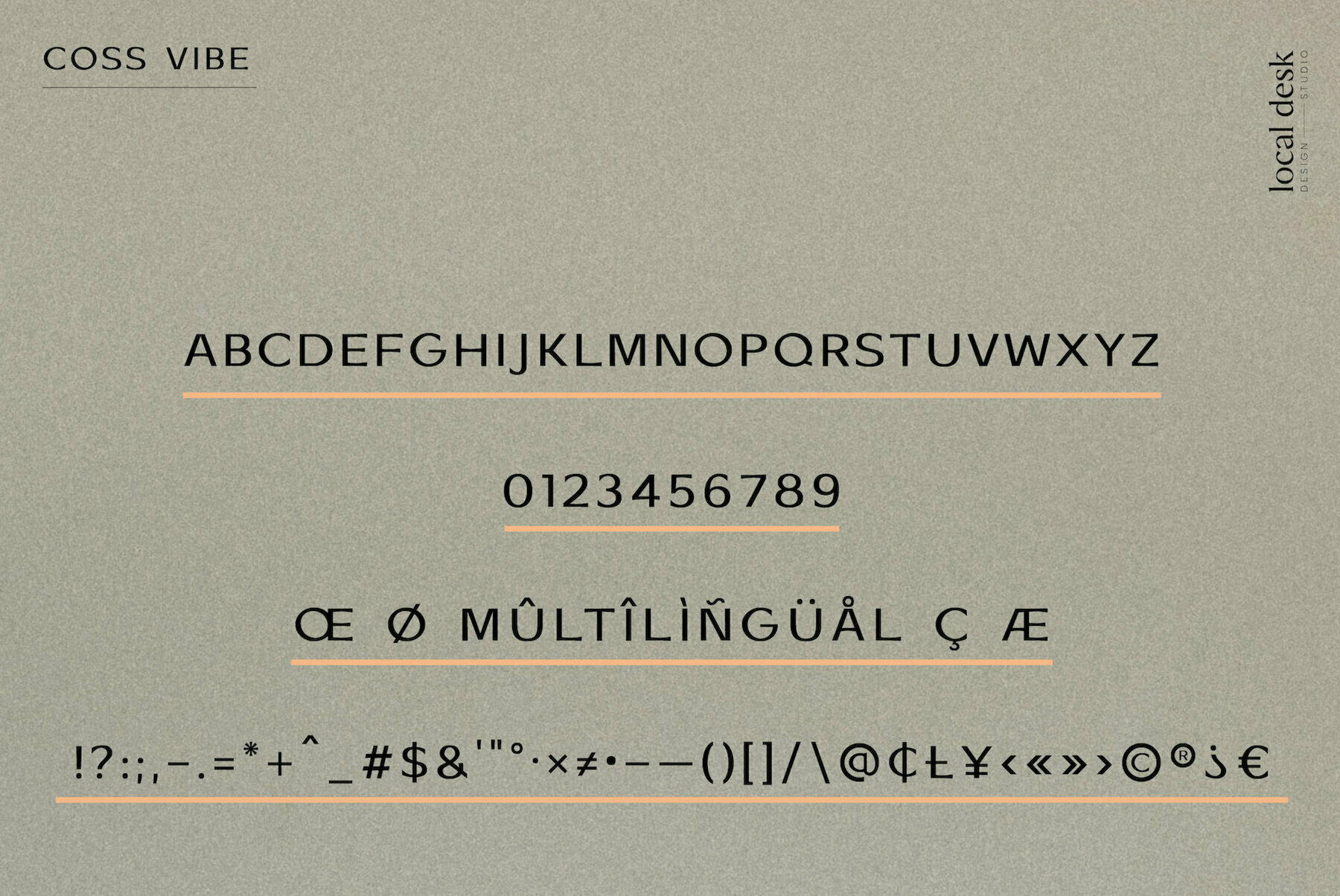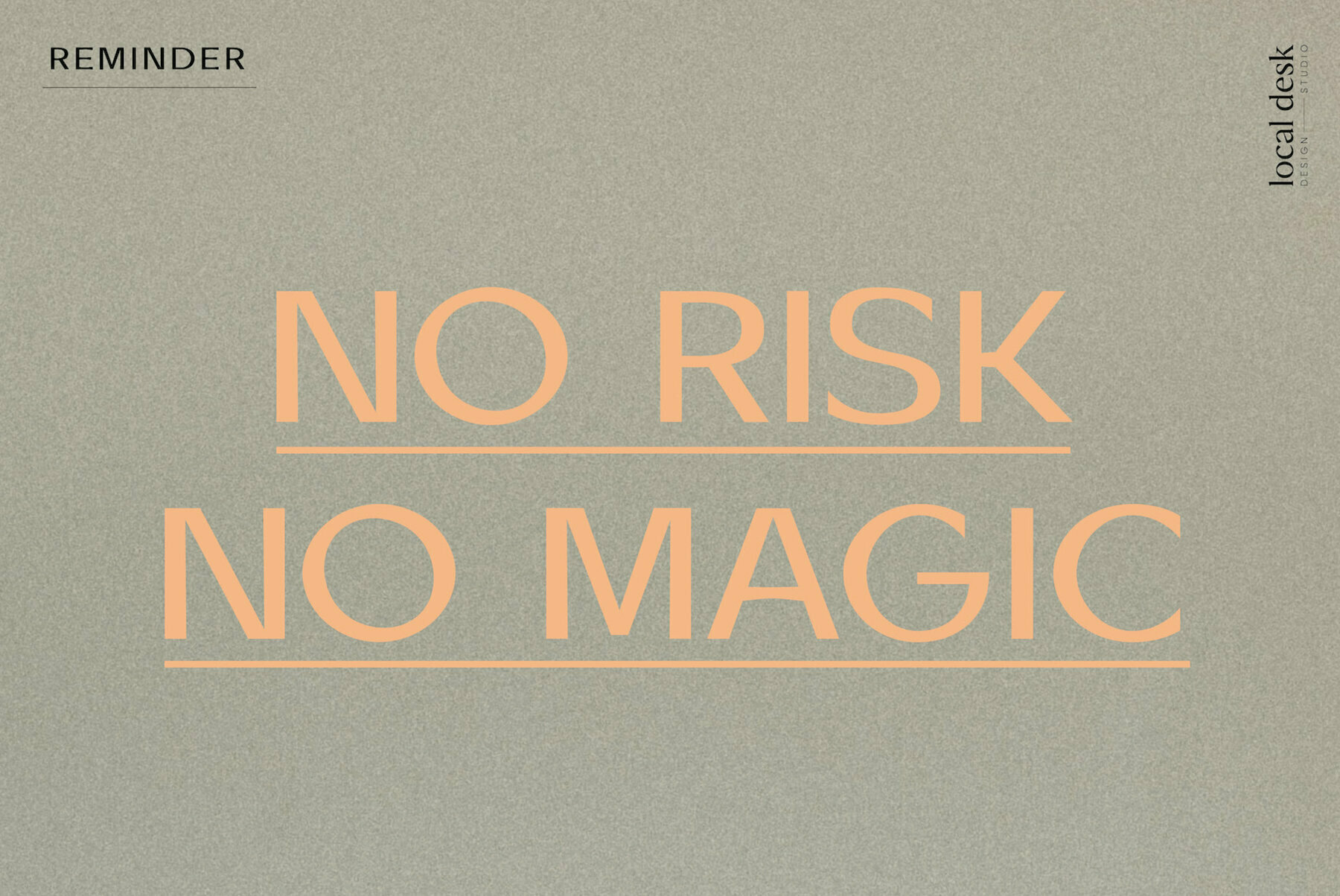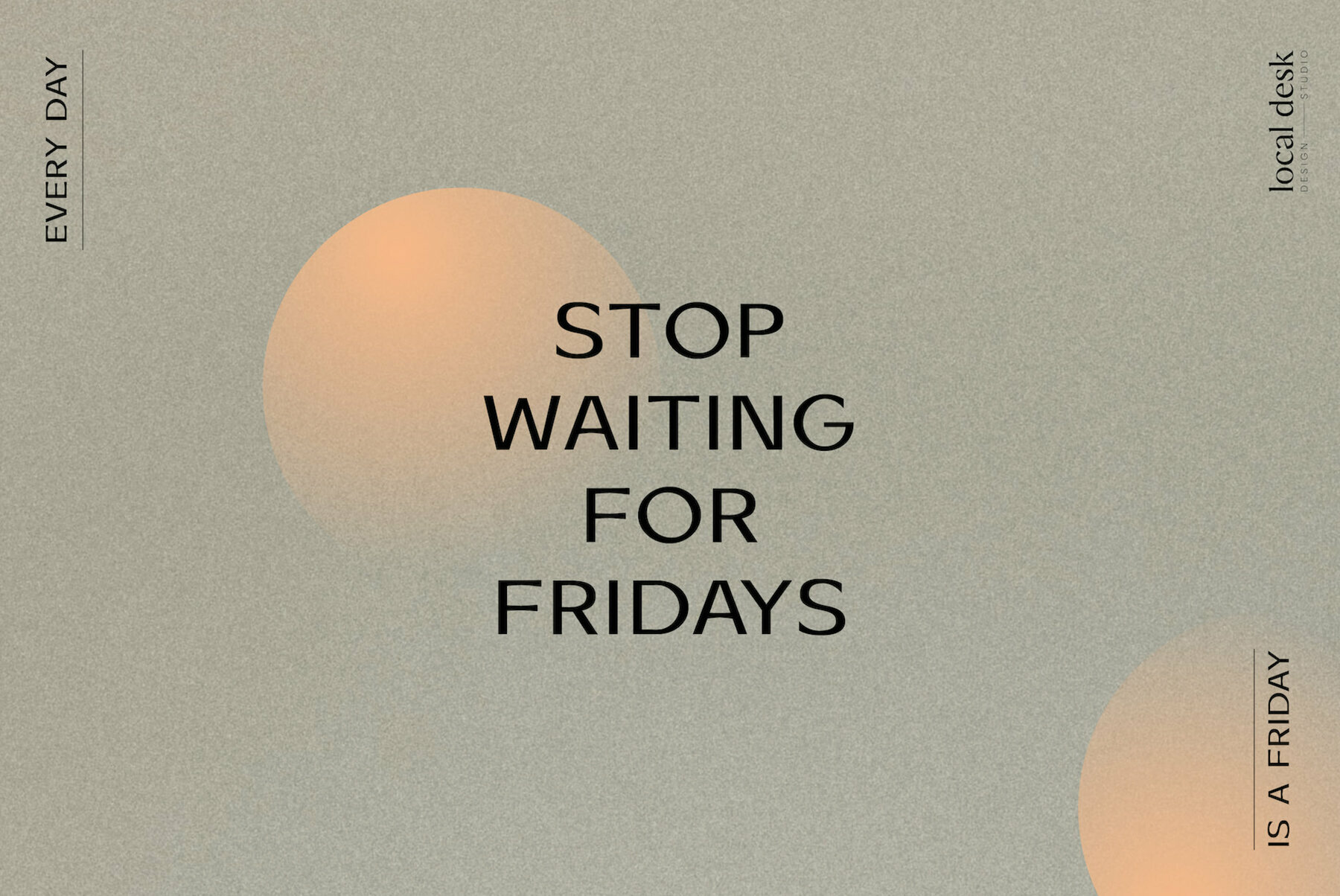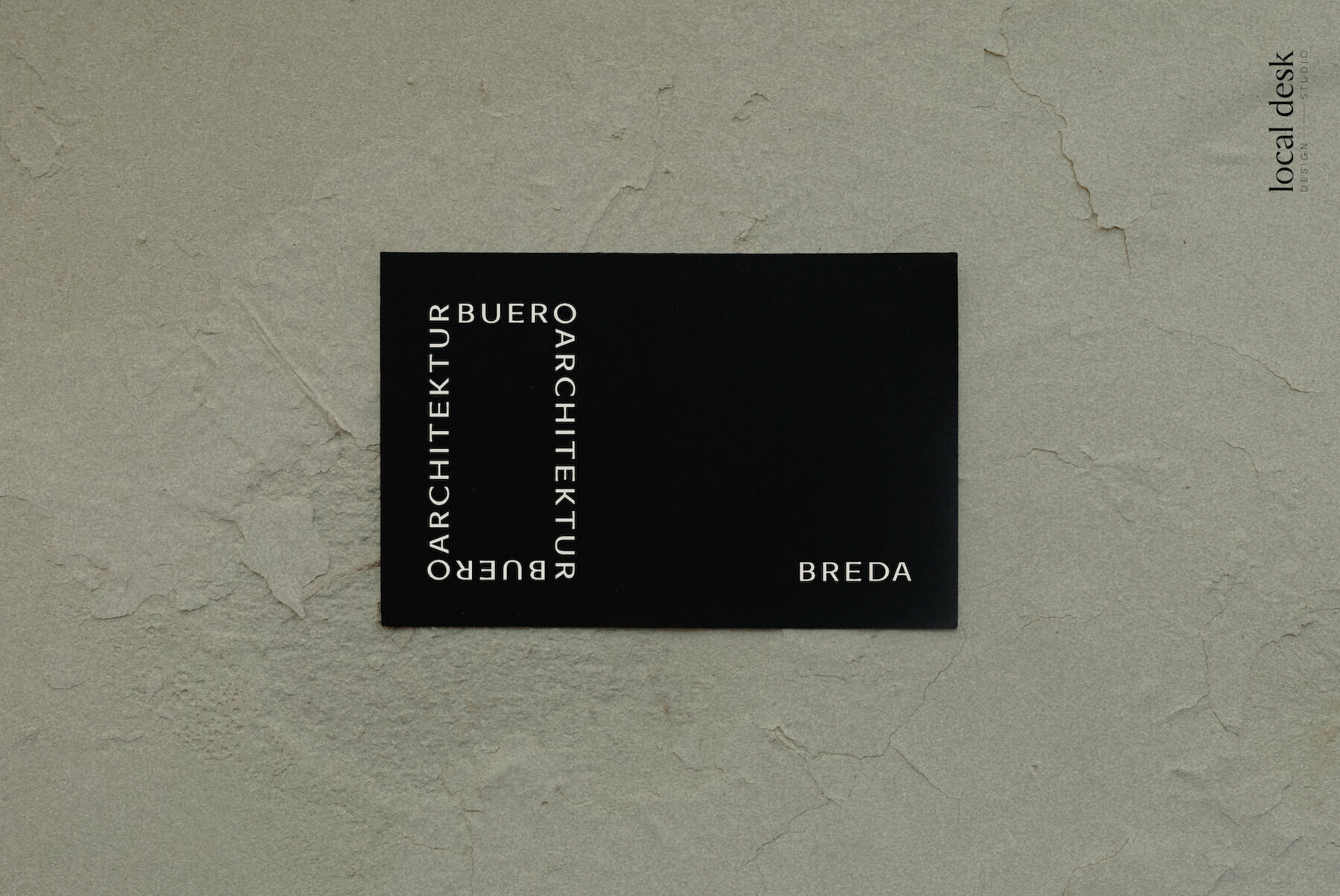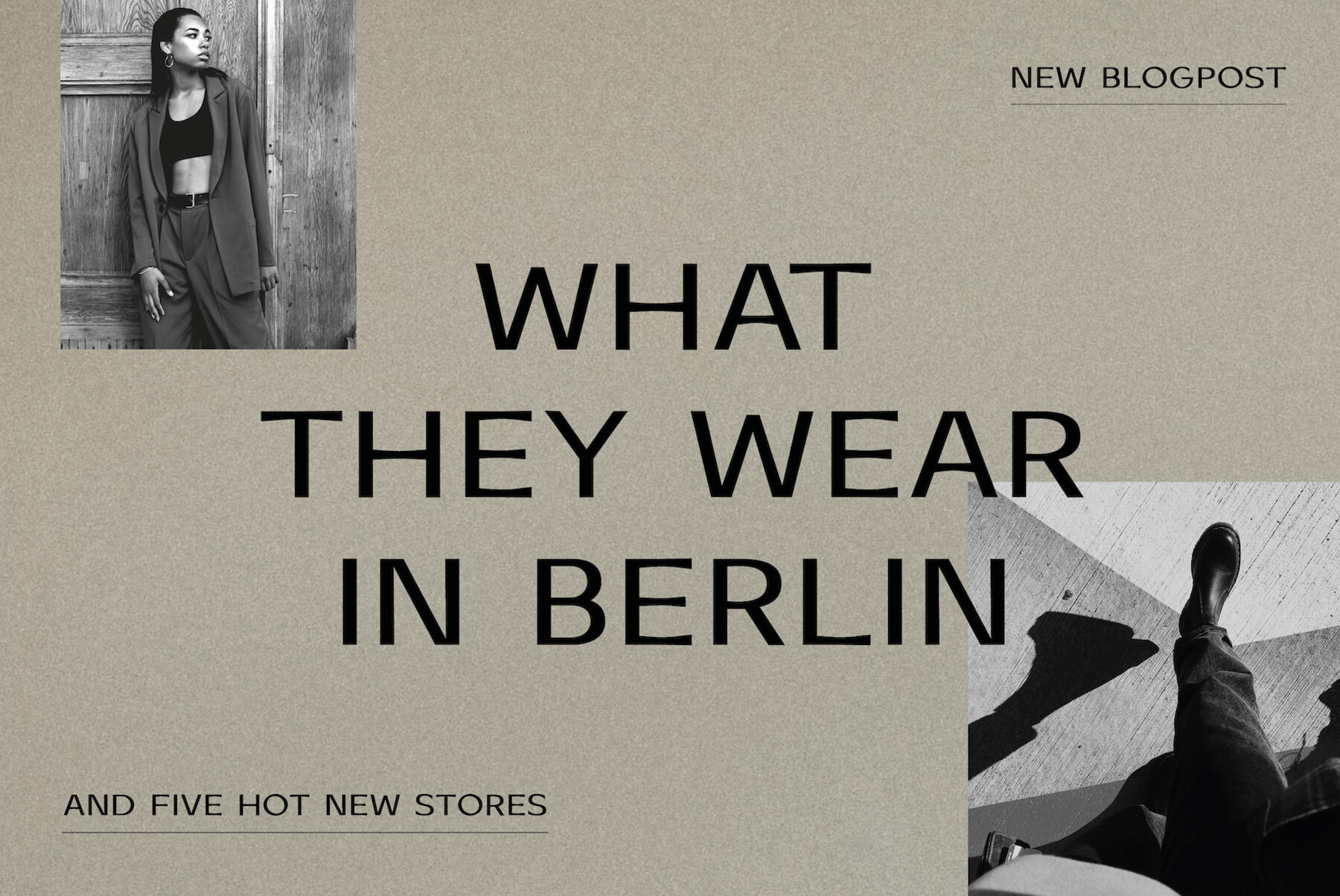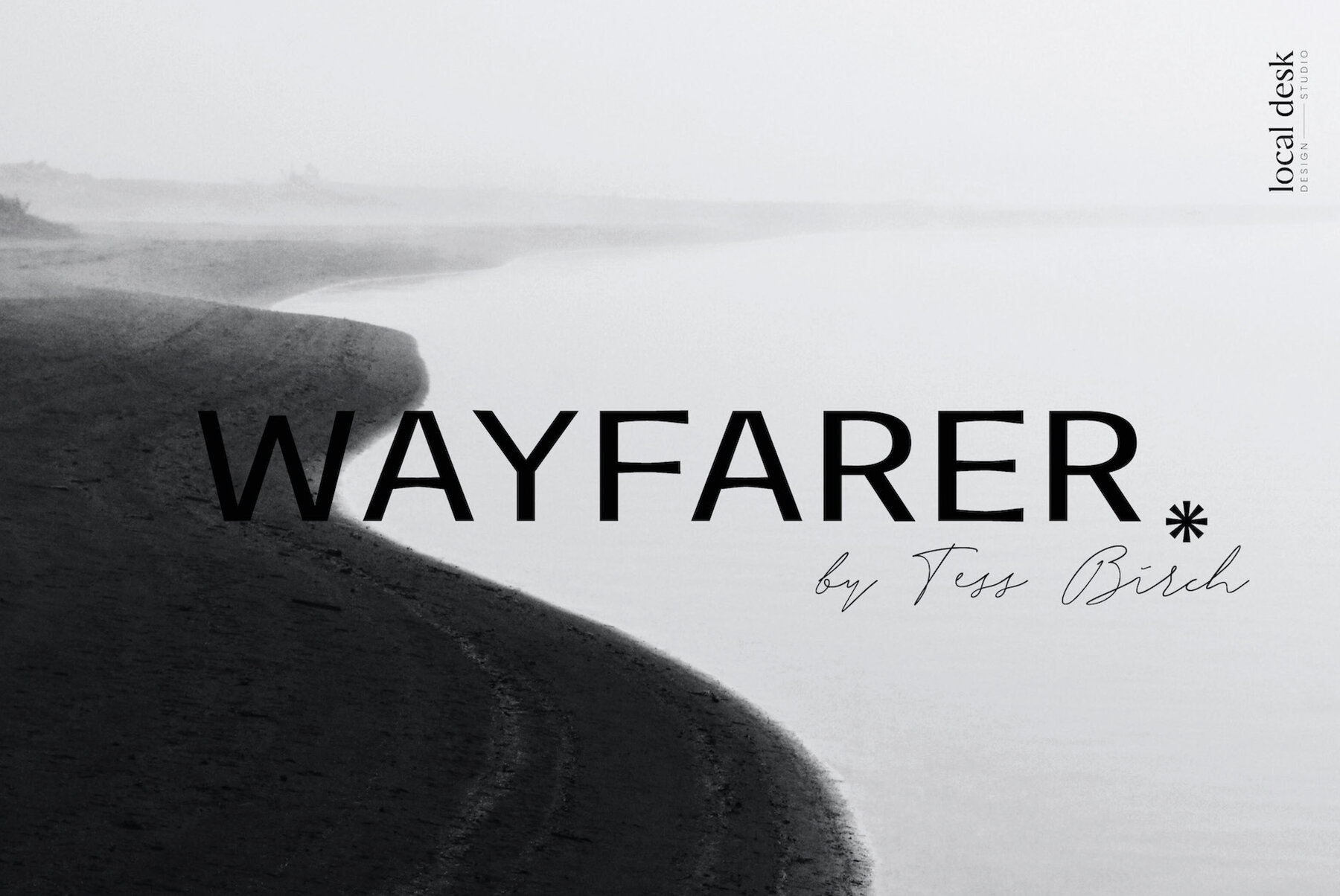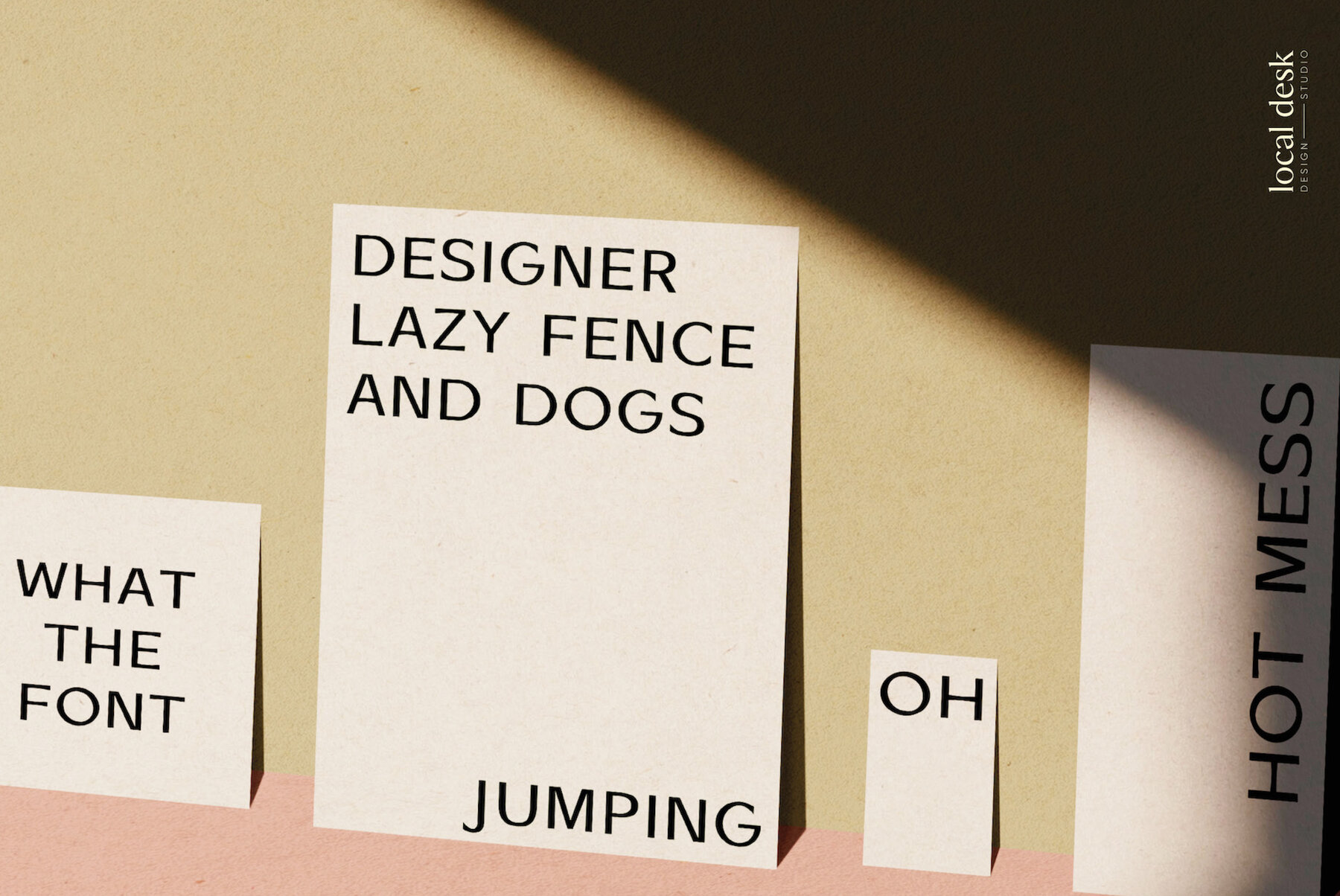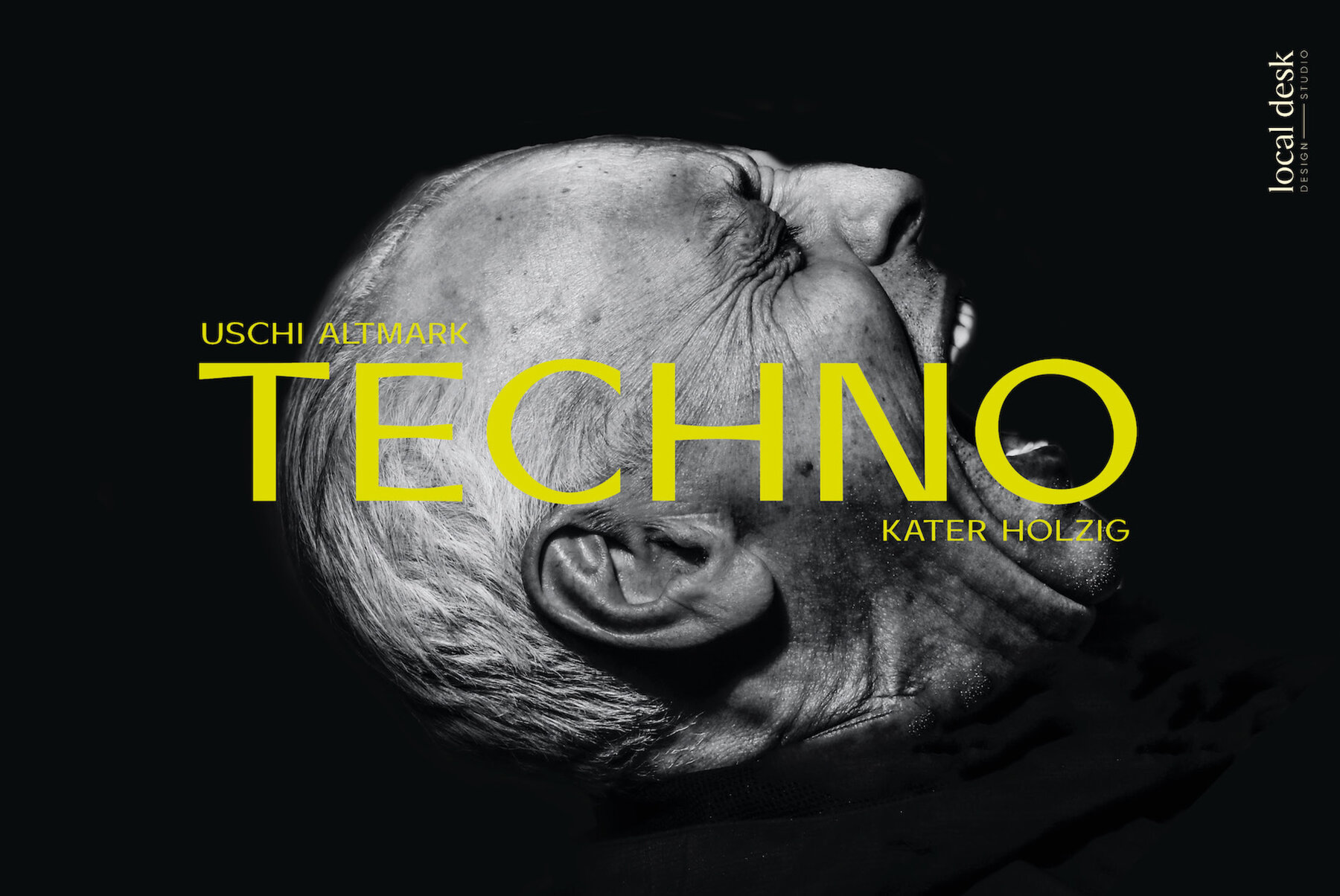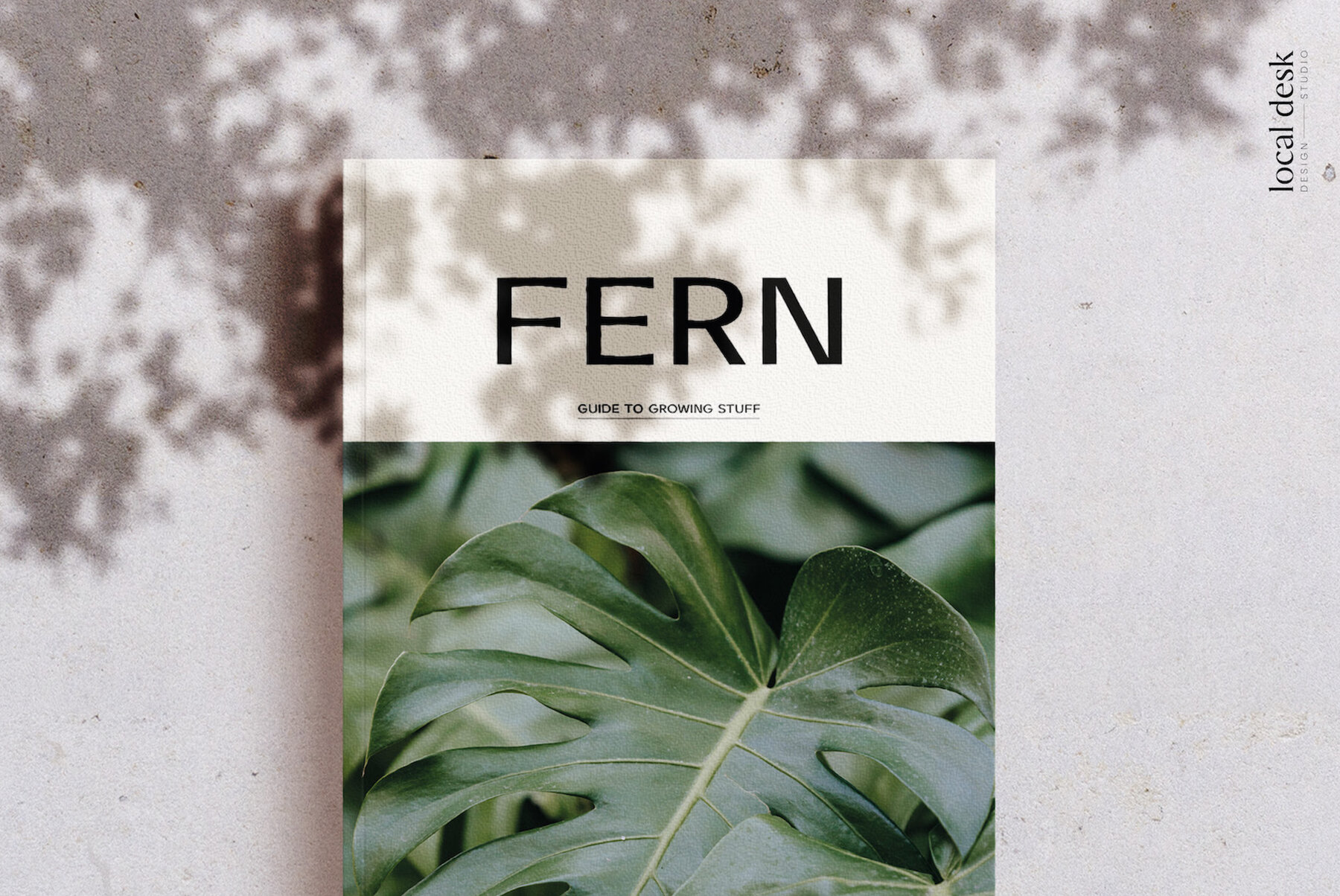
Coss is a distinctive, modern sans serif typeface with a peculiar vibe. Unique shapes and contrasting lines create a stylish font with a special & unique flow. Coss is perfectly suited for designing recognizable & modern brands, contemporary packaging, bold statements, website headers and so much more!